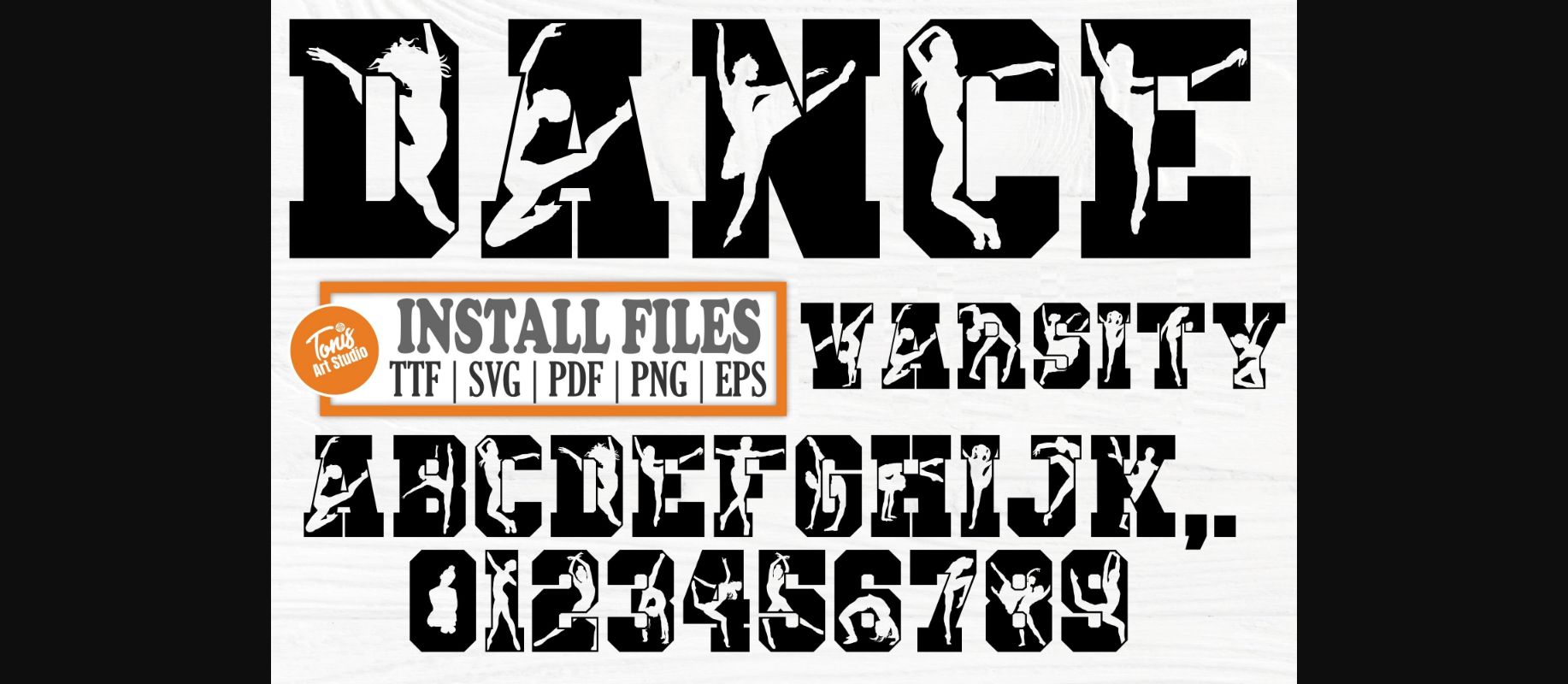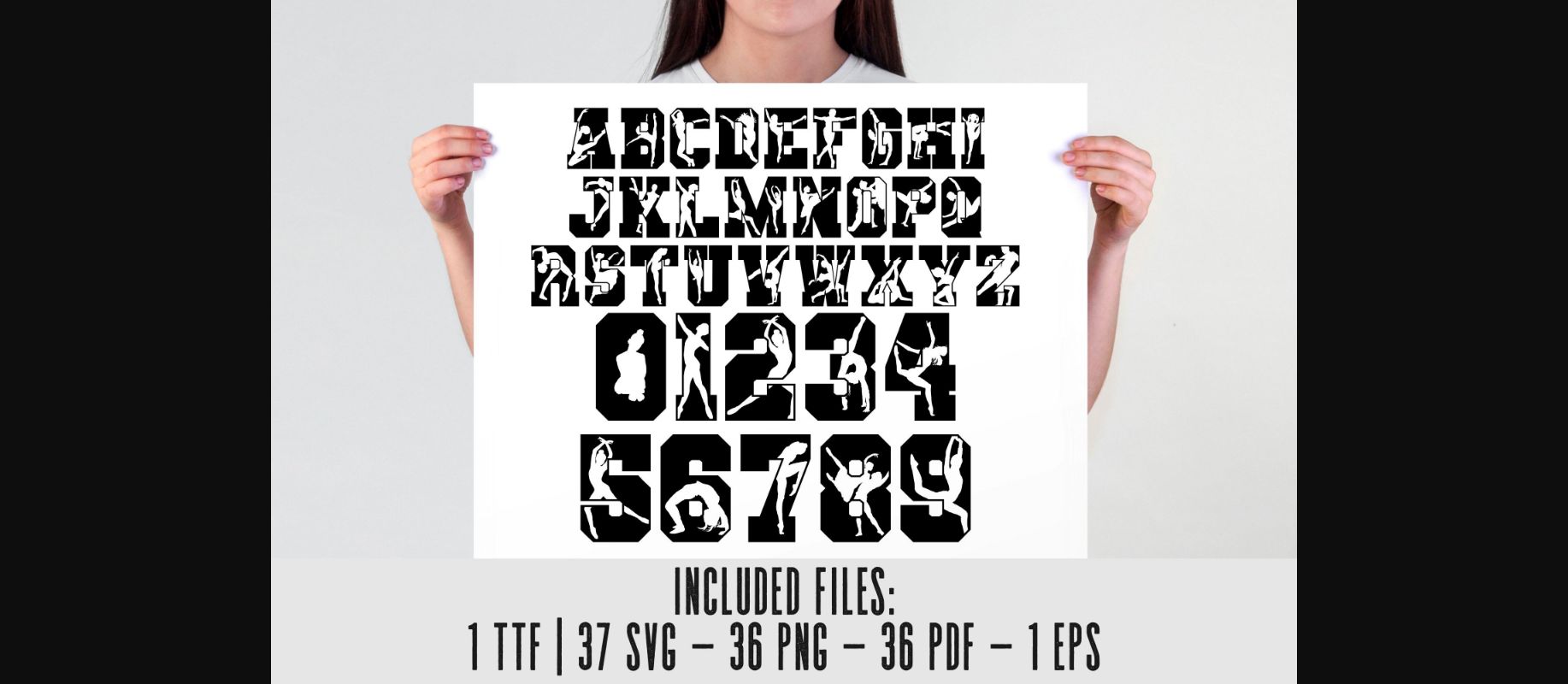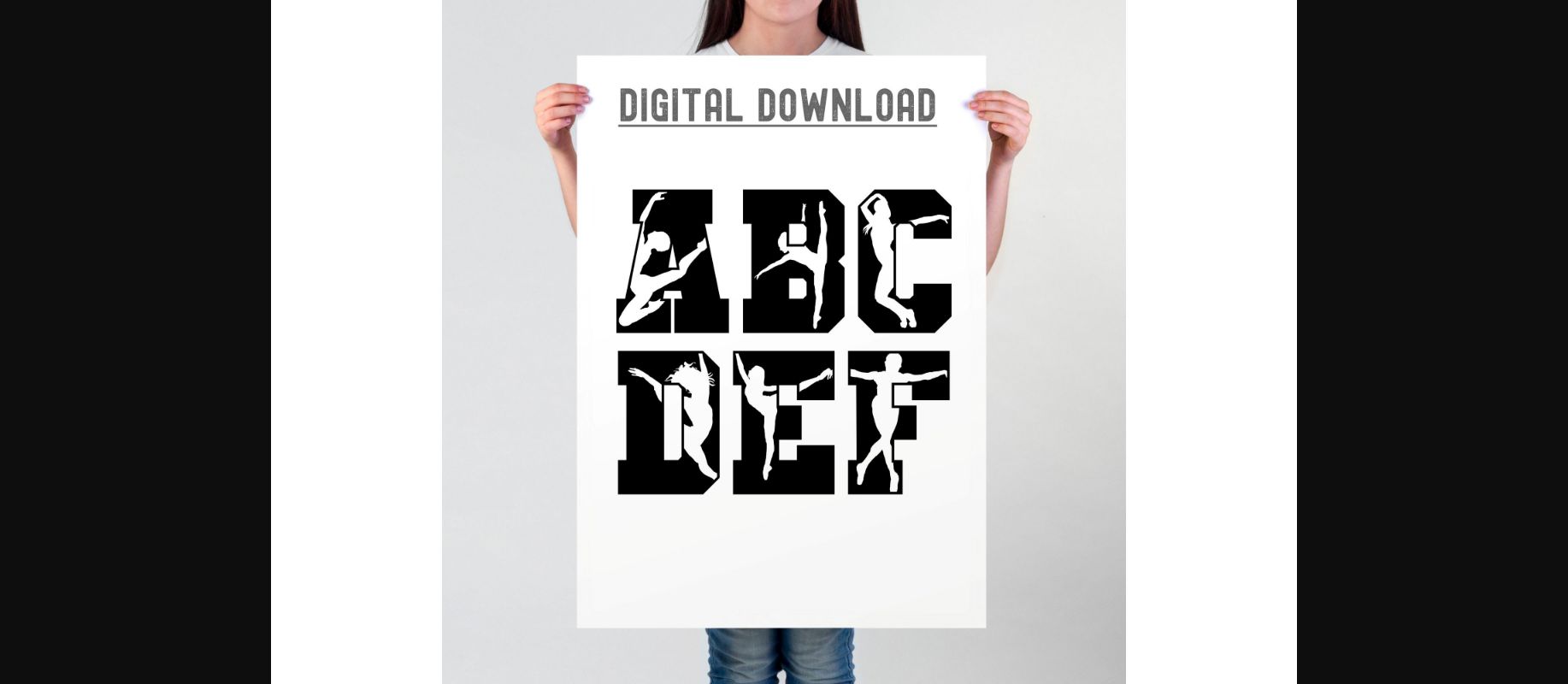
About Dance Varsity Font
Dance Varsity is a cool decorative font exuding the spirit of youthful energy and athleticism. With bold, dynamic letterforms reminiscent of varsity sports jerseys, it captivates attention and injects a sense of excitement into designs, perfect for logos, posters, and branding projects with a vibrant, spirited vibe.